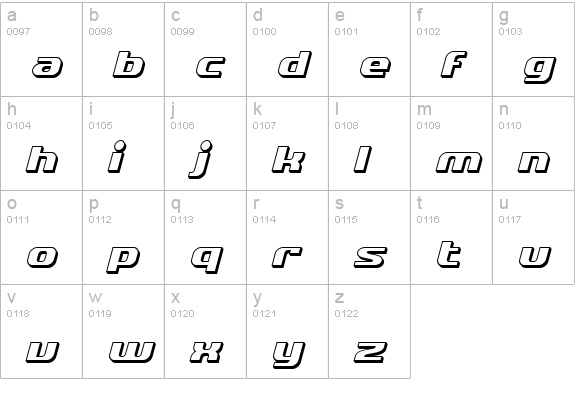
SF Quartzite Shaded Oblique Font Details
SF Quartzite Shaded Oblique is a distinctive, italic variant in the SF typeface family \xE2\x80\x94 well suited to design and typography projects.
SF Quartzite Shaded Oblique font is a visually striking and meticulously designed typeface that effortlessly combines elegance with a touch of modernity. Its unique oblique style adds an extra layer of sophistication, making it perfect for a wide range of design projects. The SF Quartzite Shaded Oblique font is characterized by its beautifully shaded and three-dimensional appearance, which adds depth and dimension to any text or headline. Each letter is meticulously crafted with precision, ensuring a seamless and harmonious flow throughout your design. This font is not only aesthetically pleasing but also highly versatile. Whether you're working on a logo, packaging, branding, or any other creative endeavor, SF Quartzite Shaded Oblique font will elevate your design and captivate your audience. One of the best things about SF Quartzite Shaded Oblique font is that it is freely available to download at FontsMarket.com. This means that you can easily access and use this stunning font without any cost. Whether you're a professional designer or a hobbyist, this font allows you to create stunning visuals without any limitations. With its effortless elegance, unique shading, and captivating oblique style, SF Quartzite Shaded Oblique font is a must-have for any designer looking to make a statement. Download it for free at FontsMarket.com and unleash your creativity today.